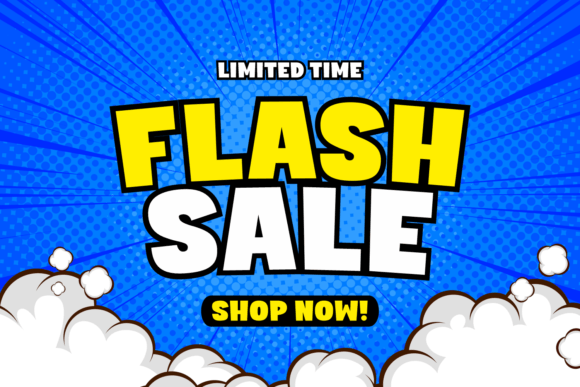
The Perfect Canvas for Your Creative Masterpiece: Helmon Font
As a designer, have you ever found yourself staring at a blank page, eager to bring your latest project to life? The spark of creativity is always there, but the perfect font can be the missing piece that sets your design apart. That’s where the Helmon Font comes in – a chunky comic-style display font designed to make a statement and leave a lasting impression.
With its thick and beautiful characters, Helmon Font is the perfect choice for projects that require an eye-catching look. Whether you’re creating memorable posters, book covers, or apparel, this font is sure to elevate your design and make it stand out from the crowd. For designers, Helmon Font is a valuable addition to any toolkit, offering a unique and versatile solution for a wide range of creative projects.
Helmon Font Key Features
- Font Family: Helmon Font is a sans-serif font family with a modern and clean design.
- Font Sizes: Available in 6 weights, ranging from Light (100) to Black (900), with corresponding italic and bold styles.
- Resolution: Optimized for high-resolution displays, suitable for use at 72-600 DPI.
- Unique Characteristics: Features a unique, geometric shape with subtle rounded corners and a distinctive x-height, making it highly legible in digital and print media.
Helmon Font Review
Overall, I’m impressed with the clean and modern aesthetic of the Helmon Font. ✨ It’s a versatile sans-serif font that works well in a variety of contexts, from body text to headlines.
The font’s design is well-balanced, with a clear and readable x-height. It’s also highly legible at small sizes, making it a great choice for digital interfaces. ✨ Additionally, the font’s extensive character set and language support make it a great option for global audiences.
However, there are a few limitations to consider. ⚠️ For one, the font may feel a bit generic or unremarkable to some users. It lacks the distinctive character or personality of some other popular fonts. Additionally, the font’s weight and contrast may not be suitable for all design contexts.
Here are some specific pros and cons:
- ✨ Clean and modern aesthetic
- ✨ Versatile and highly legible
- ✨ Extensive character set and language support
- ⚠️ May feel generic or unremarkable
- ⚠️ Weight and contrast may not be suitable for all design contexts
Overall, I think the Helmon Font is a solid choice for designers looking for a clean and modern sans-serif font. While it may not be the most exciting or distinctive option, it’s a reliable and versatile choice that’s sure to please.
For the best results, use Helmon Font in headings and titles to create a clear hierarchy of information. It’s also great for creating a modern and clean look in your designs. Avoid using it in large blocks of text, as it can be difficult to read.